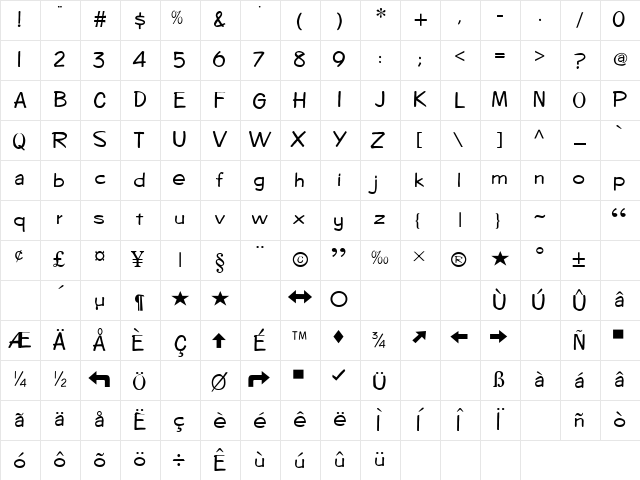
Diego1 Normal
Diego1 Family
Diego1 Normal
Design Context for Diego1
Diego1 is a composed and adaptable typeface that performs quietly and consistently across a wide range of design contexts.
Pro Tip: Use Diego1 in both headline and body roles to test its range before committing to a single application.